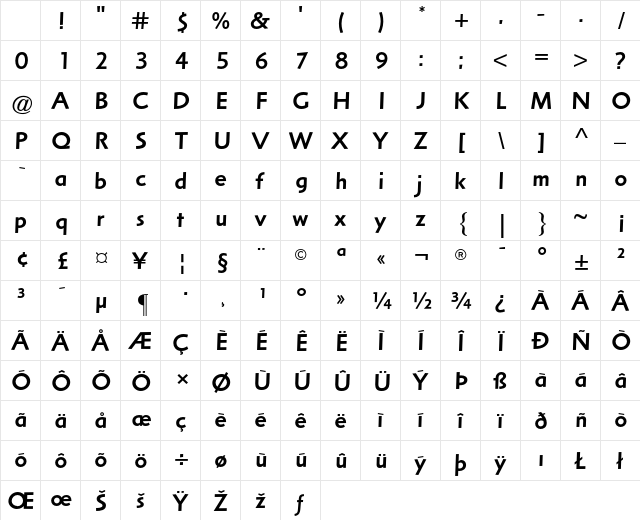
Complete Arta AT Medium Regular glyph index. Displaying only characters natively supported by Arta AT Medium Regular font.
Arta AT Medium is a composed and adaptable typeface that performs quietly and consistently across a wide range of design contexts.